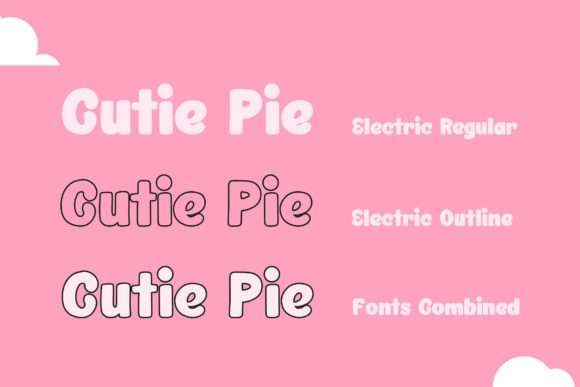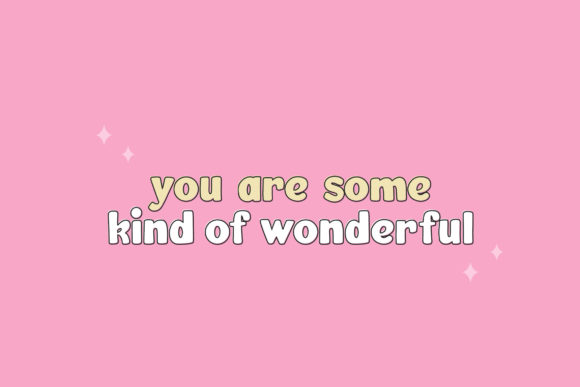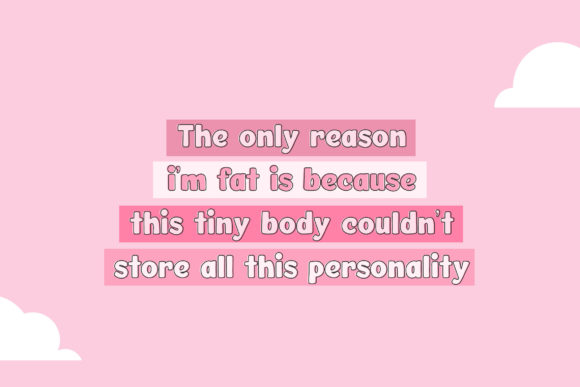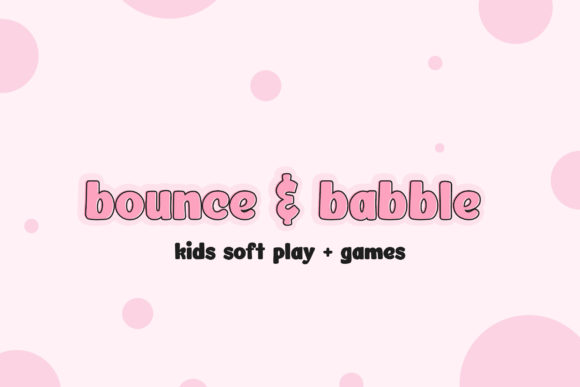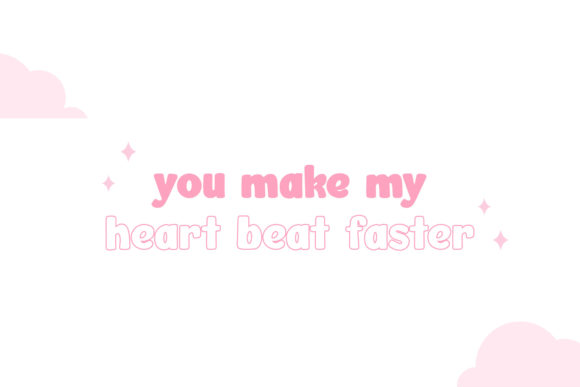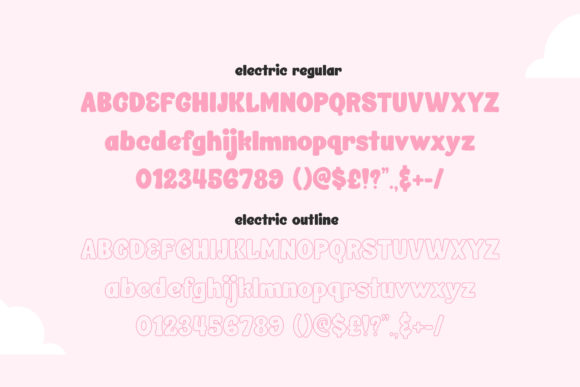
Introduction to Electric Duo Font
Electric Duo is a cool and friendly outlined display font.
It embodies playfulness and authenticity and is the perfect choice for any children activity or school project .
Key Features of Electric Duo Font
Why Choose Electric Duo Font?